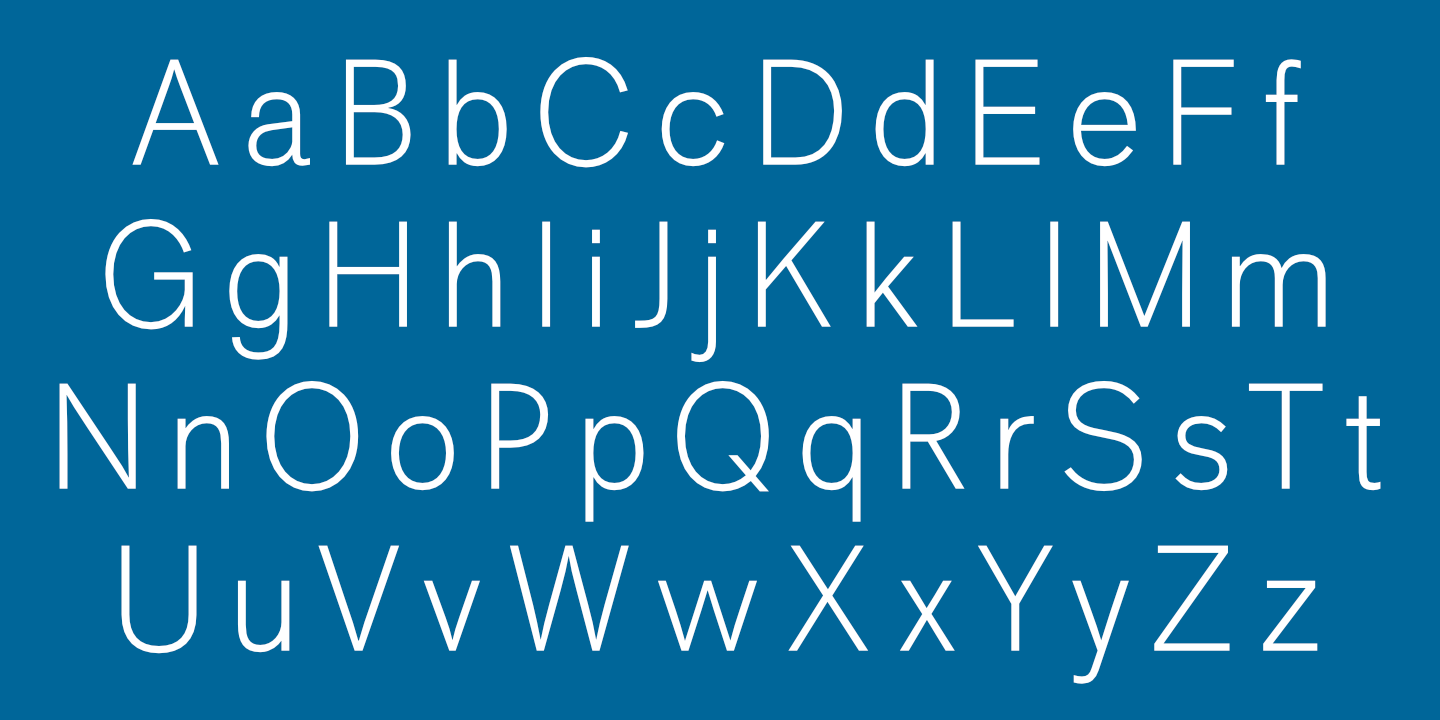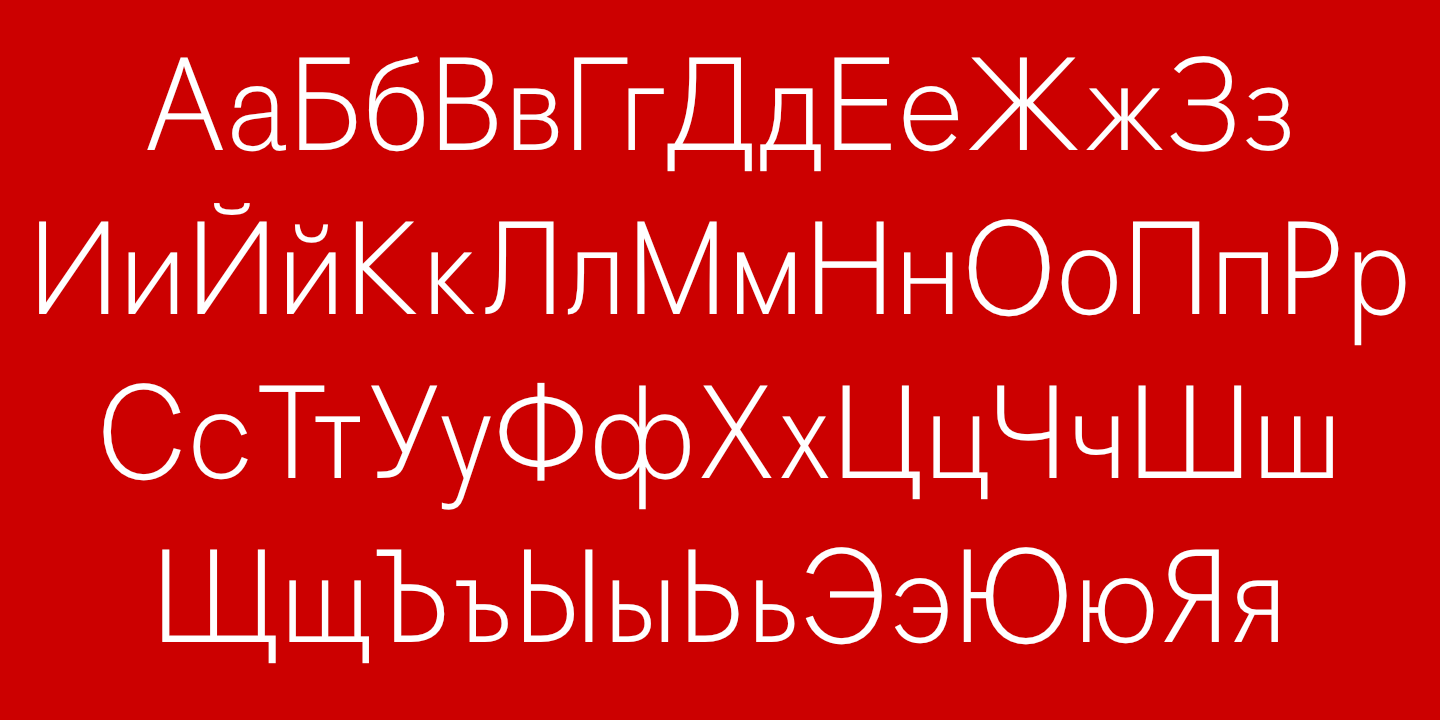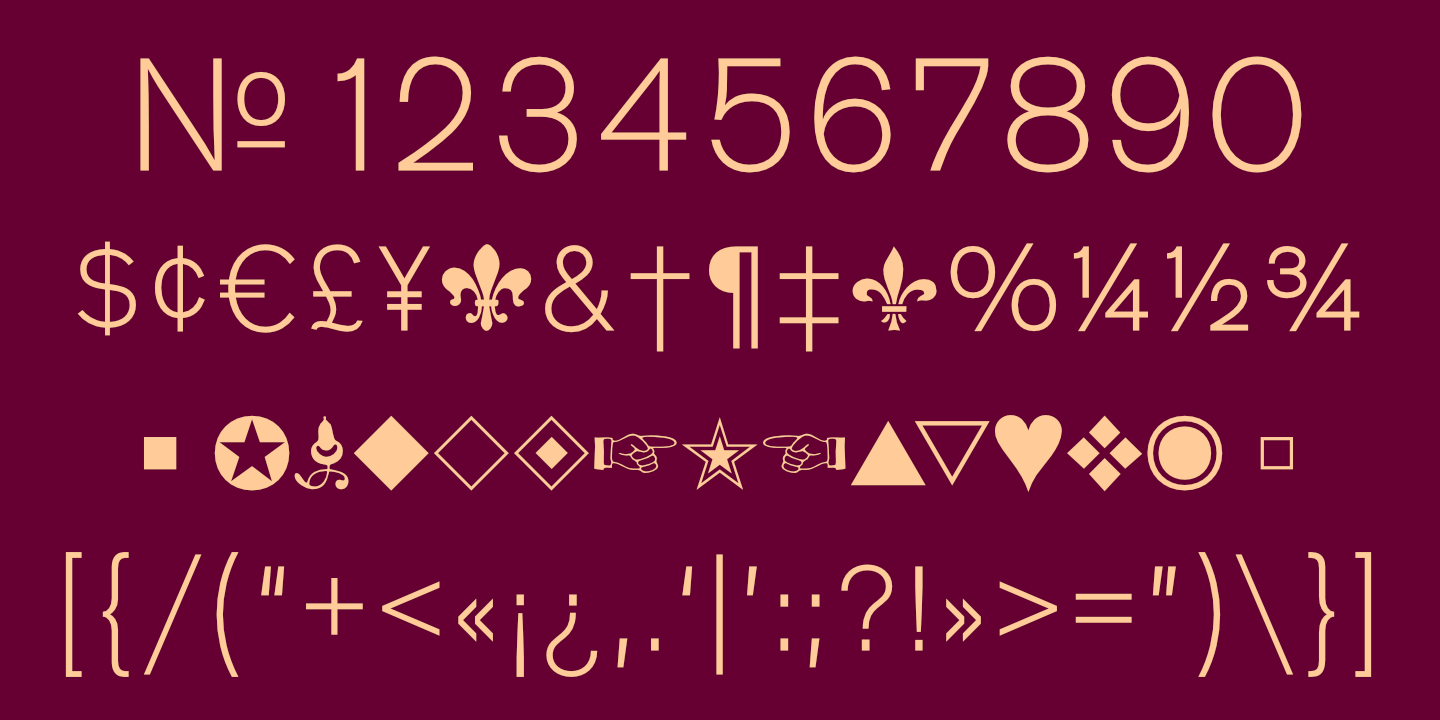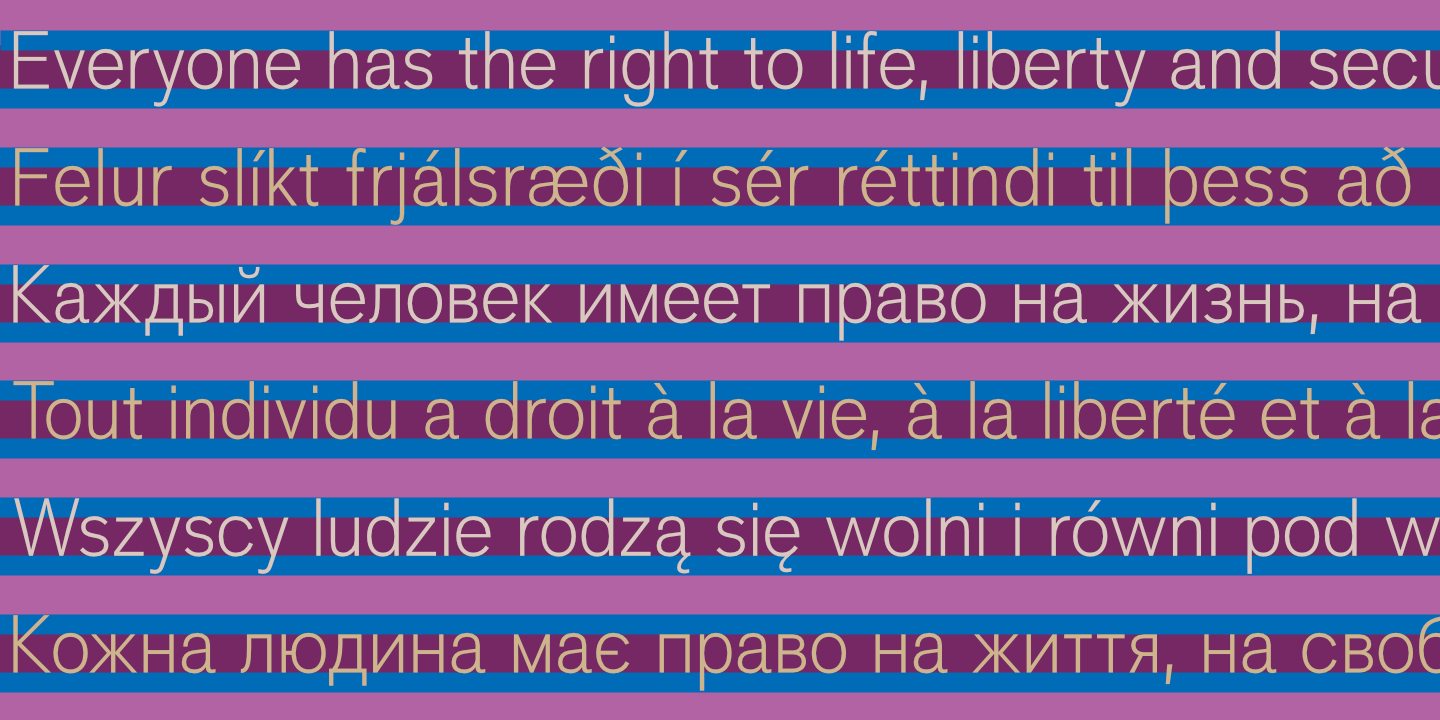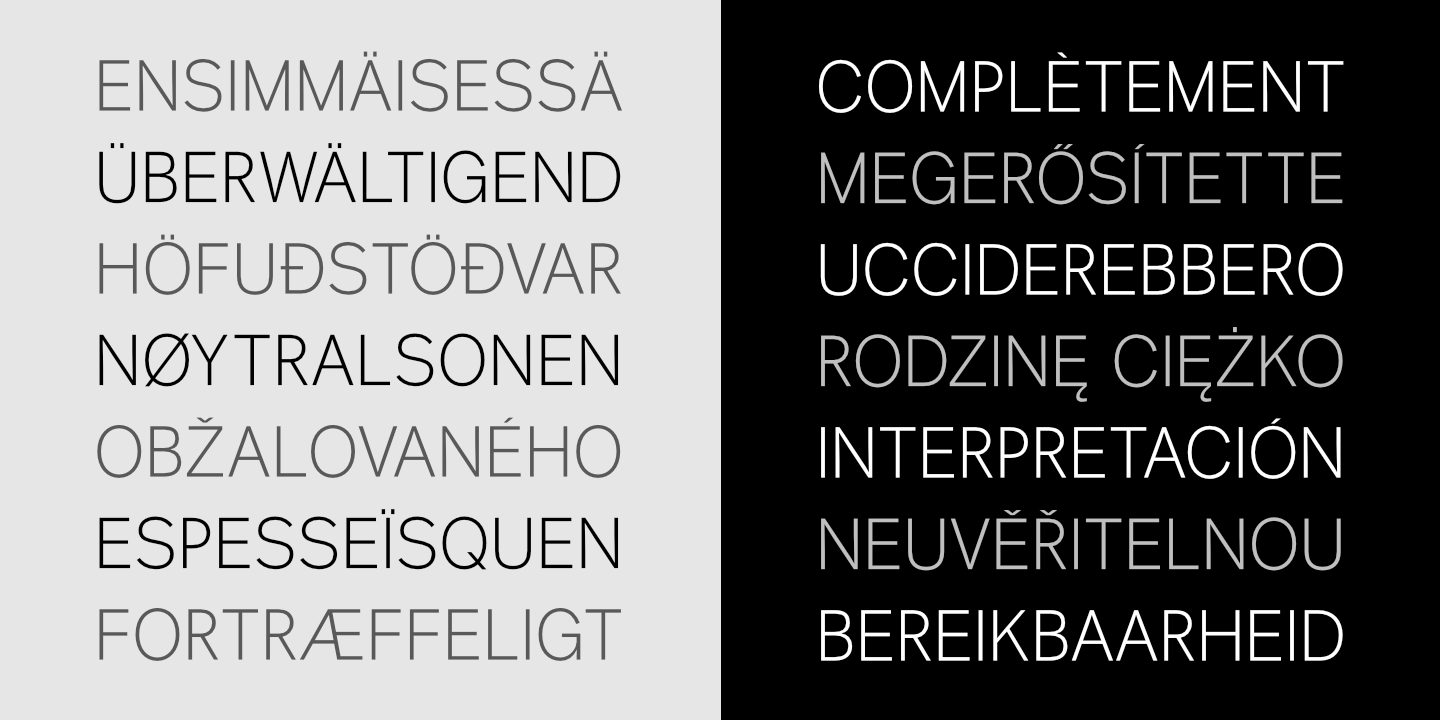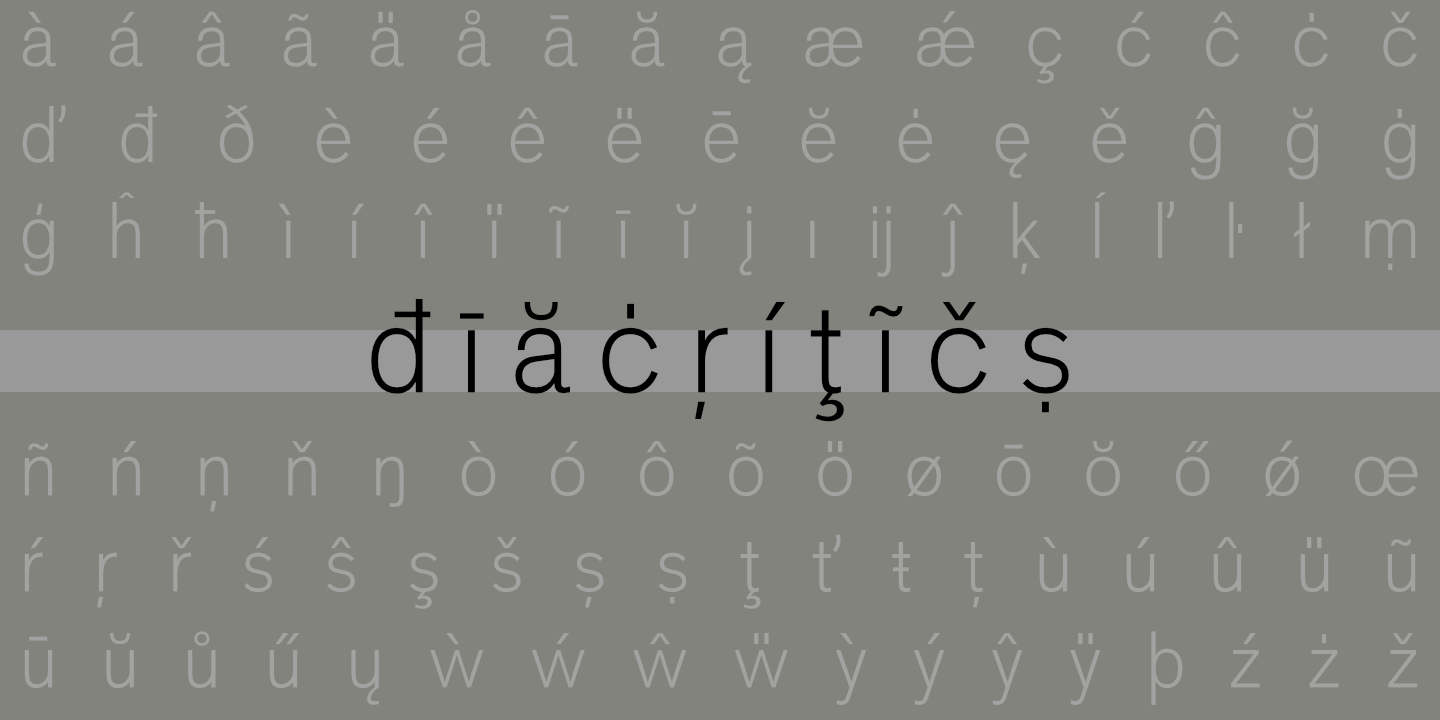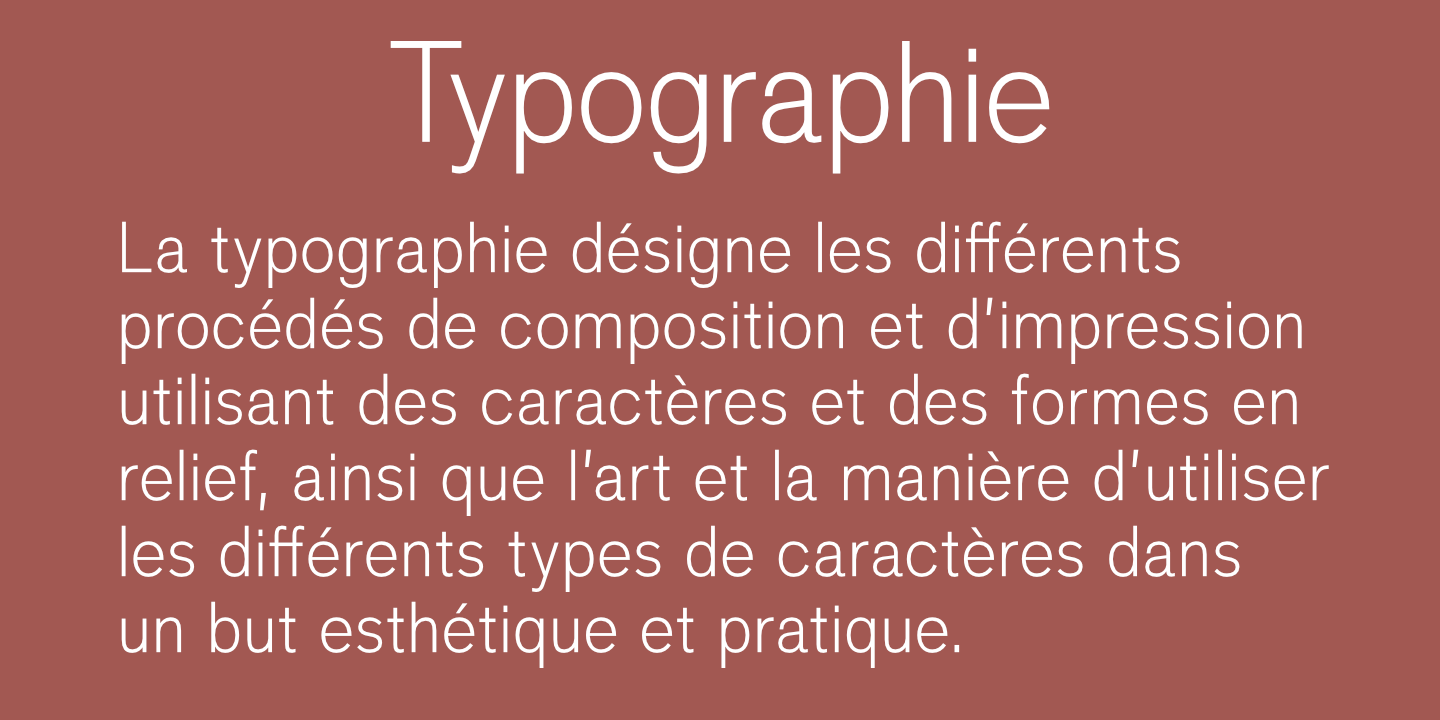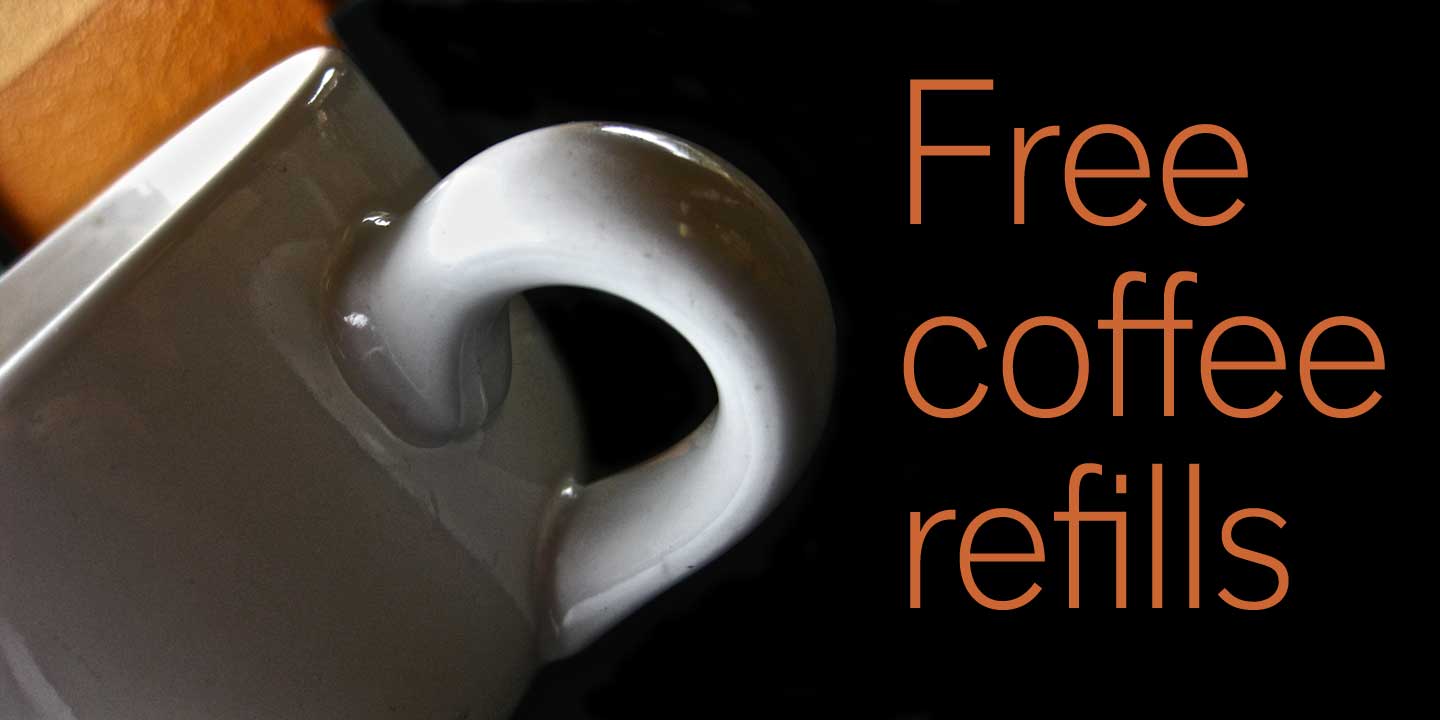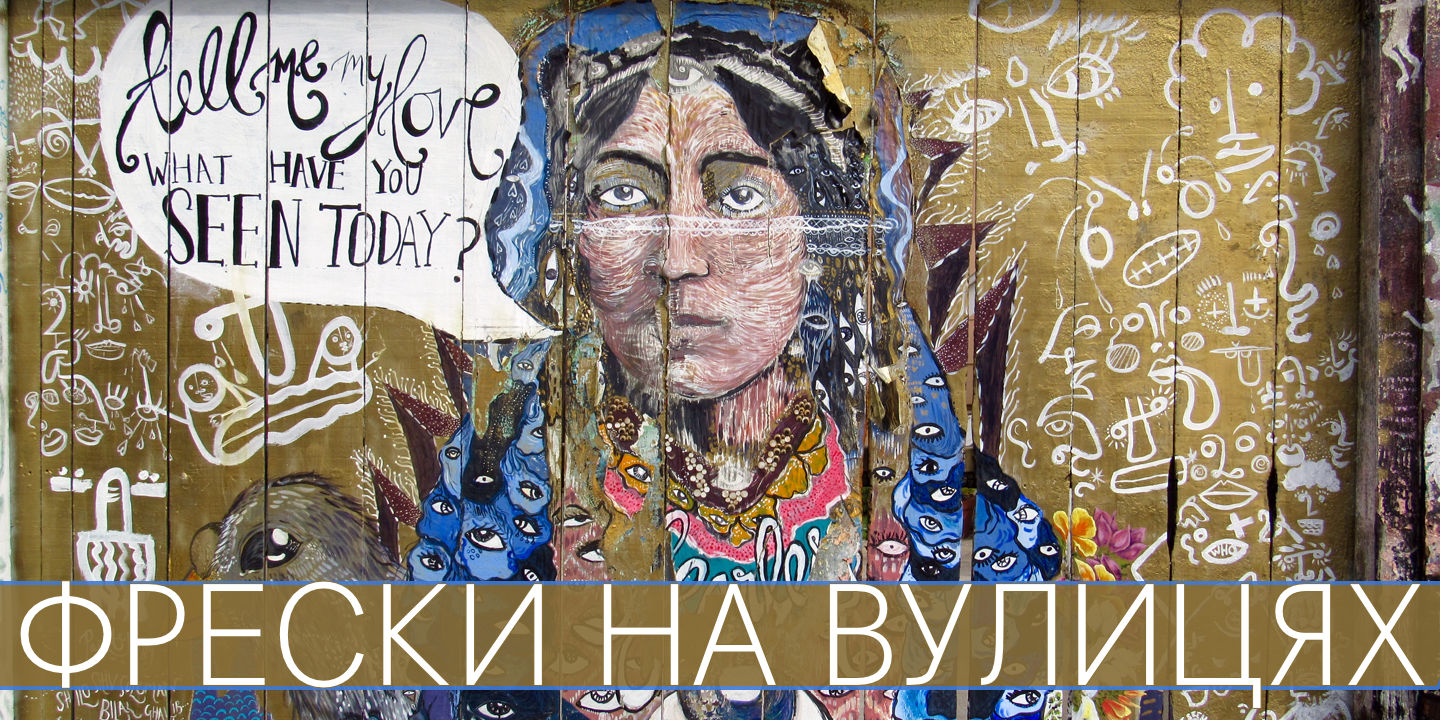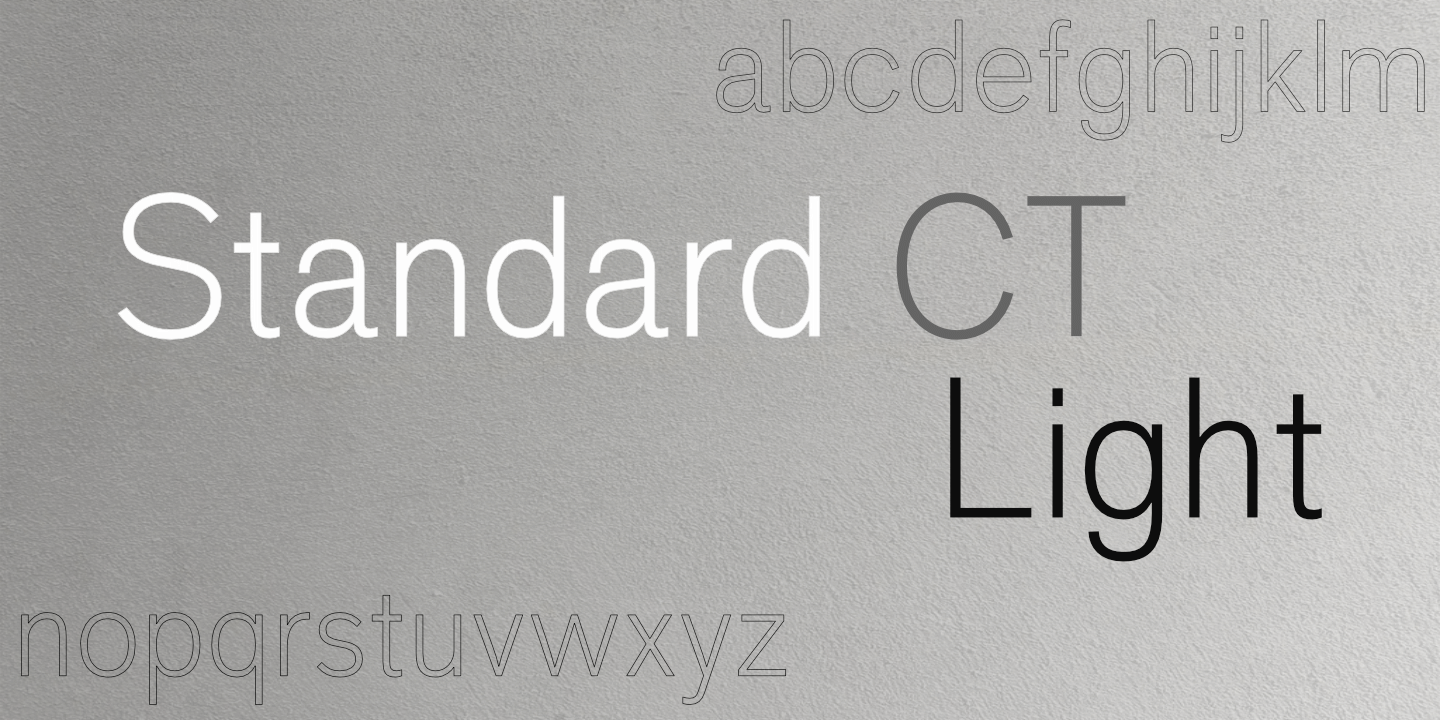
Standard CT Light: Basic Latin alphabet.
Standard CT Light supports most languages that use the Cyrillic alphabet.
Numerals, Punctuation, etc.
Standard CT Light: Numerals, basic punctuation, currency symbols, and a sampling of ornaments.
Standard CT Light supports most European languages. blank
Notice that light text on a dark background appears slightly heavier than dark text on a light background. blank
Diacritics
Standard Family
All 38 Standard CT fonts for comparison. Zoom for detail.
Typographie